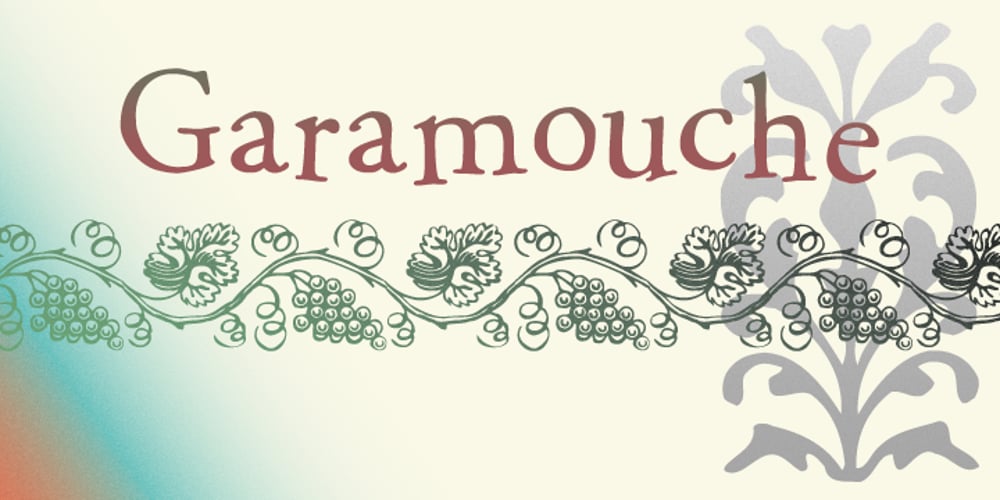
P22 Garamouche
P22 Garamouche font
P22 Garamouche Font Family was designed by Michael Want and published by P22 Type Foundry. P22 Garamouche contains 2 styles and family package options. Think of Garamouche as Garamond’s drunken cousin. This font replicates a long lost document ravaged by time and the elements (with a little sloppy printing for good measure.) Unlike the fake bolding option found in software programs, Garamouche Bold is a variant with more appropriate thick and thin features. The “dancing along the baseline” that has made Garamouche a favorite, is also a feature in Garamouche Bold, but the letters align and tilt in on their own terms. Using the two Garamouche fonts together can produce much more expressive results than just hitting “bold”. P22 Garamouche Ornaments is a set of 72 ornamental embellishments designed to complement the Garamouche fonts but can be used with almost any layout that calls for historical decoration.